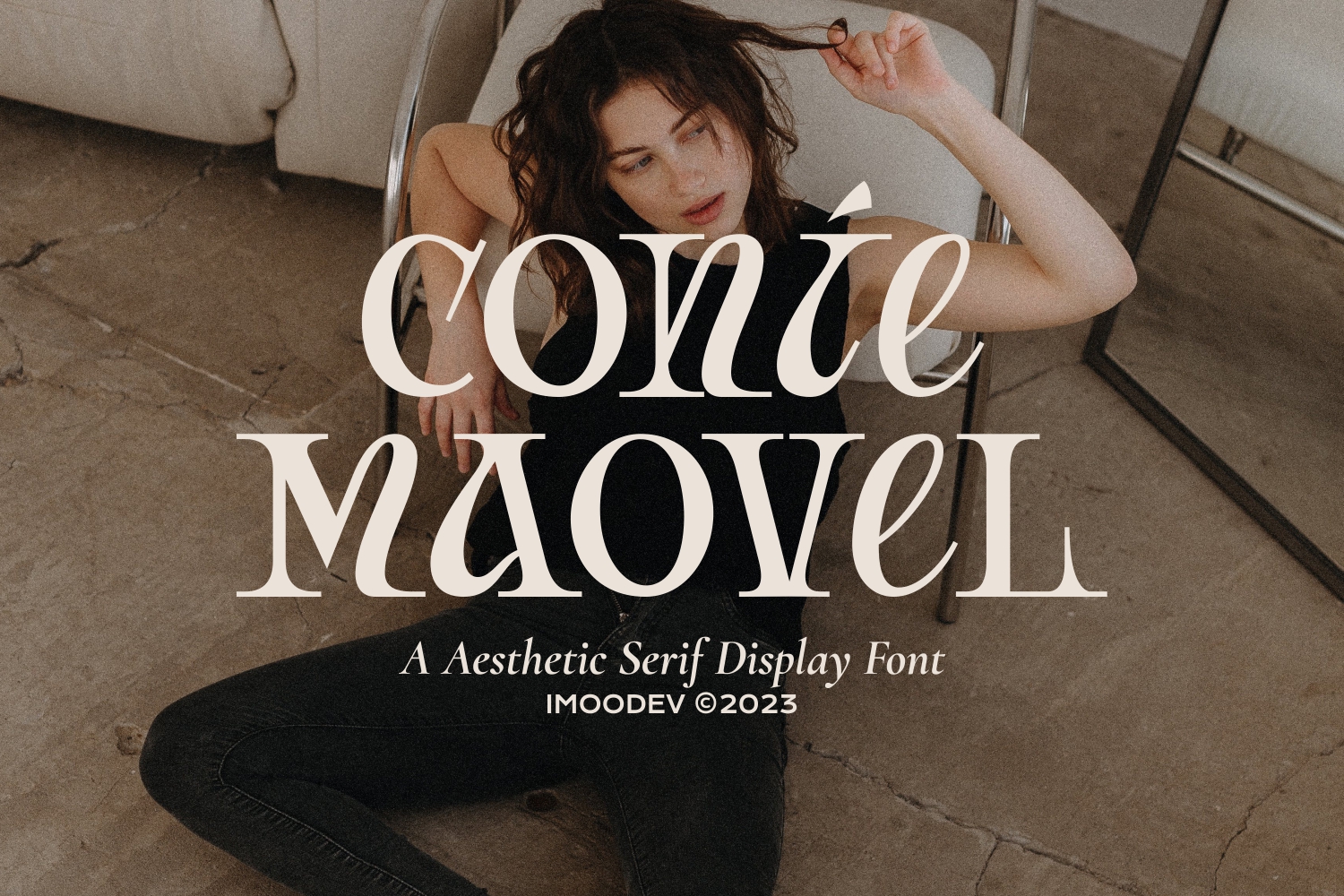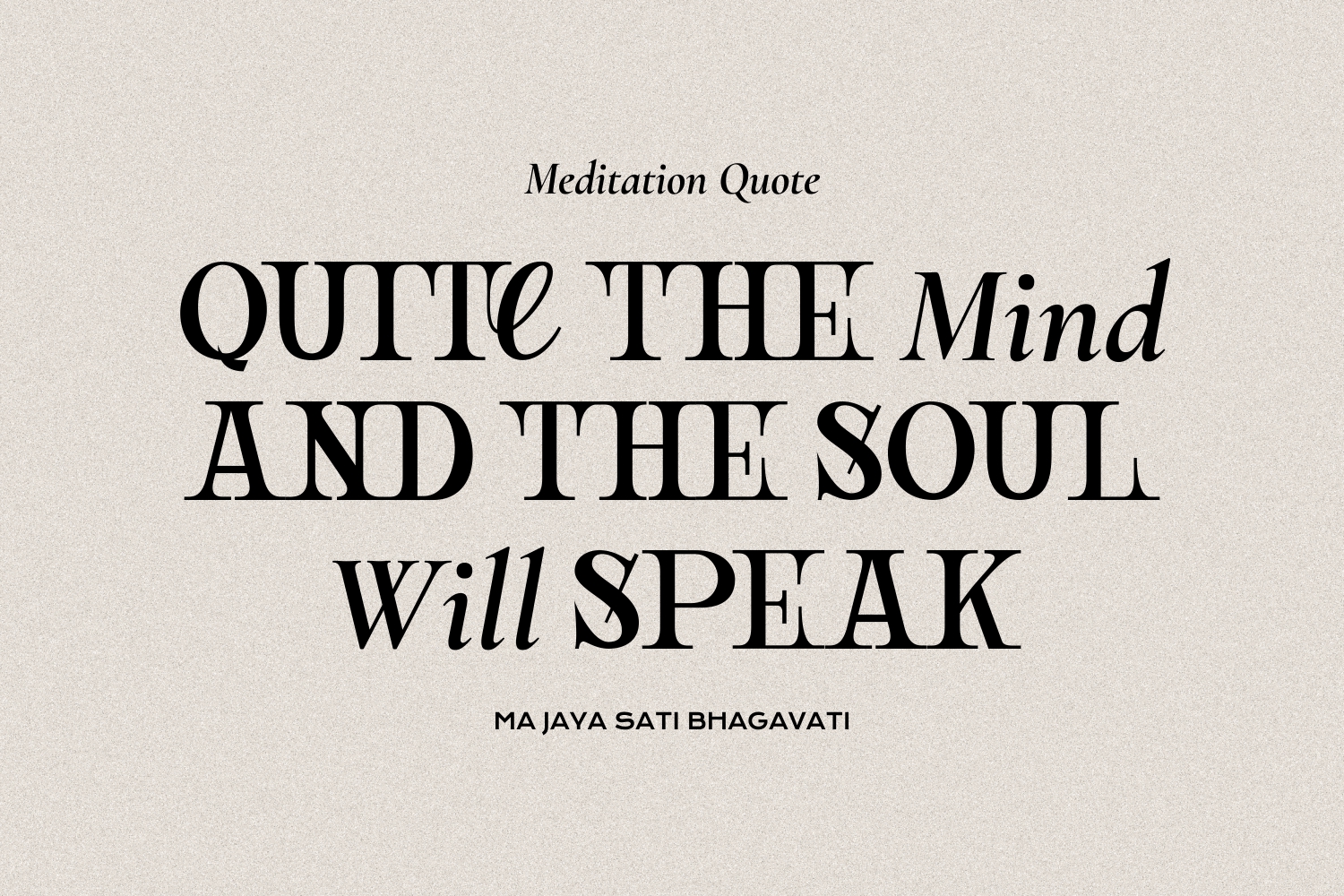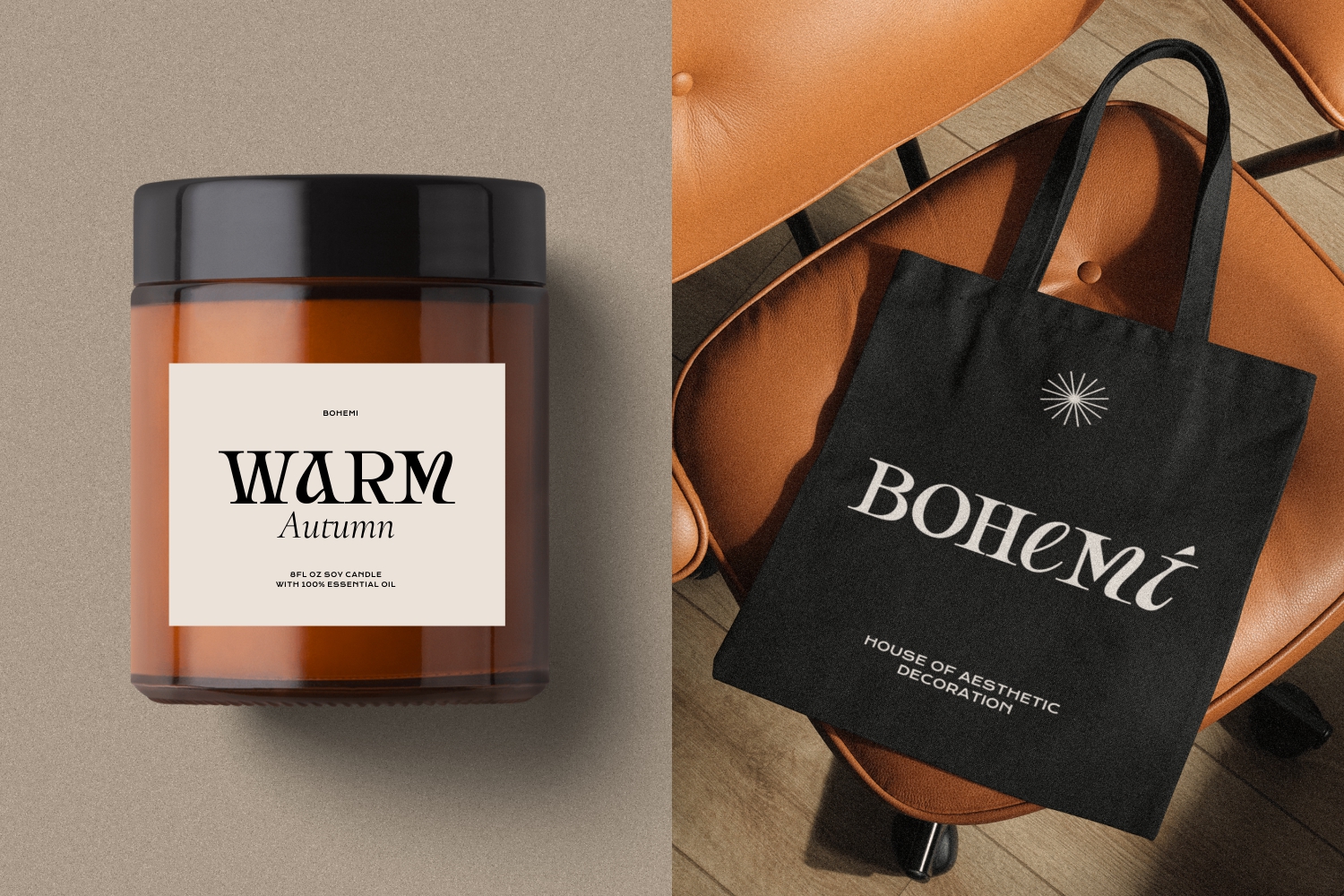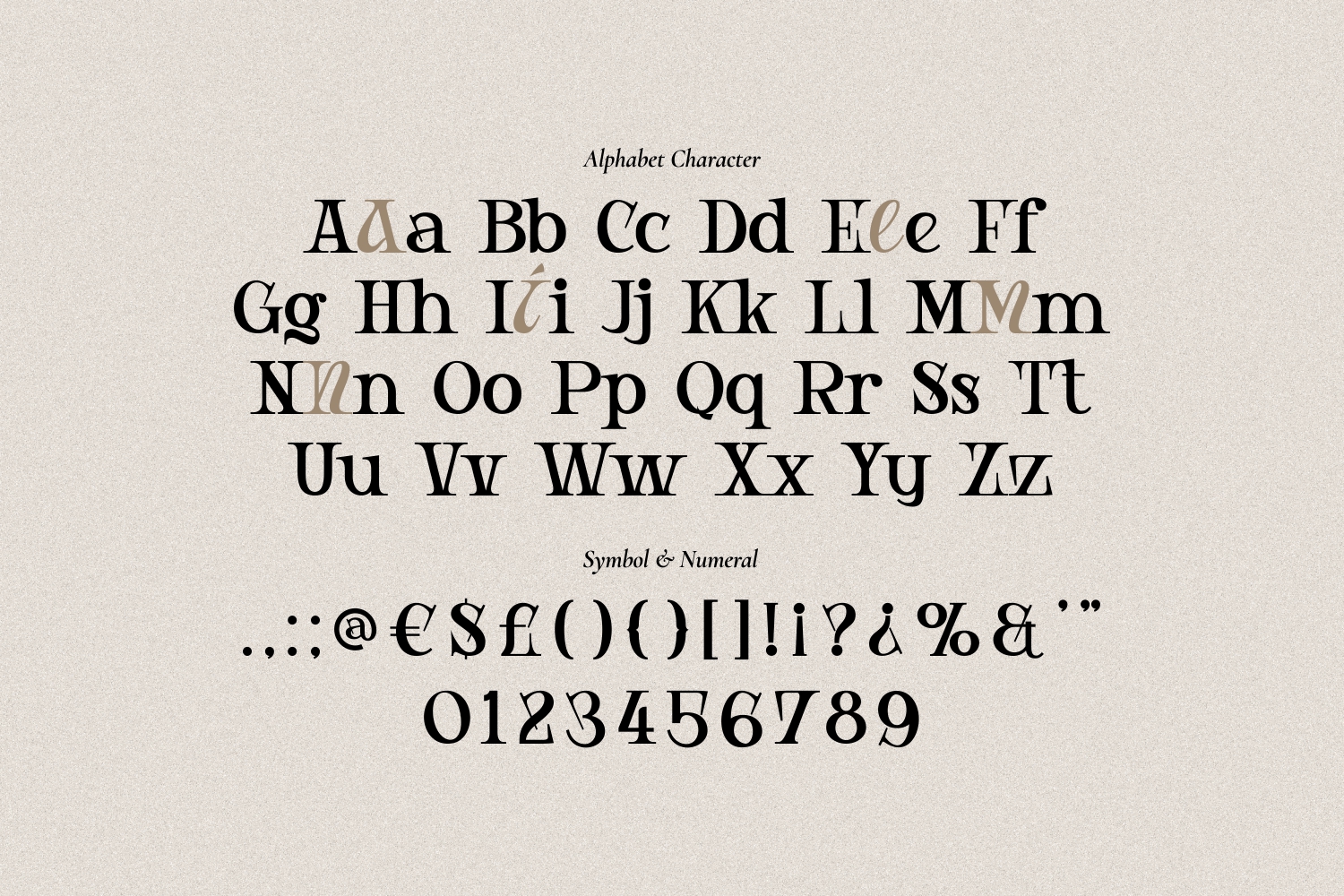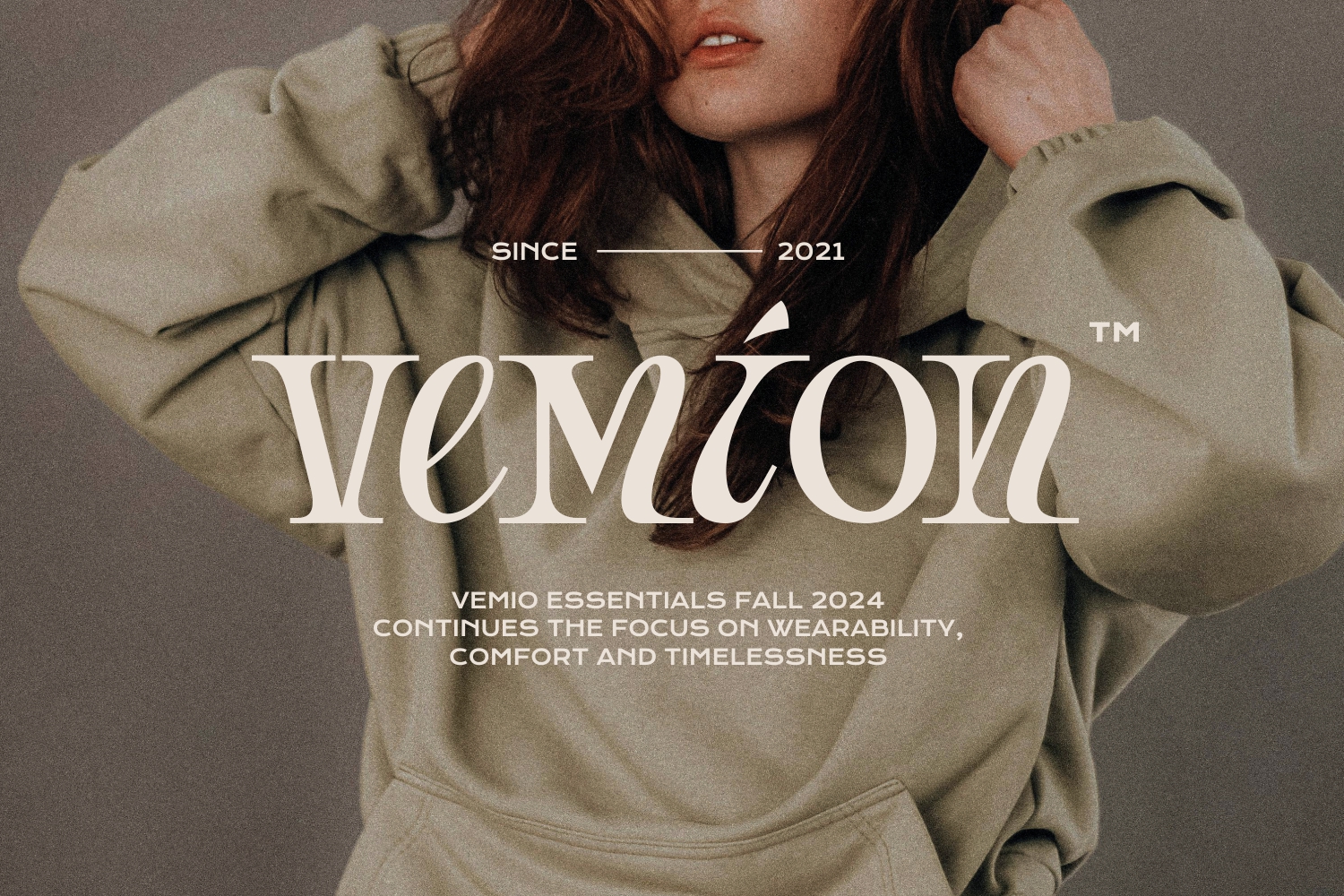
Conie Maovel is an elegant serif display font that blends classic sophistication with modern curves. Its refined letterforms feature graceful high contrast strokes and stylish alternates, making it perfect for high-end branding, editorials, and luxury product packaging. The font’s distinctive accents and ligatures add a touch of artistry, ensuring your typography stands out with timeless appeal.
Whether used for fashion campaigns, beauty product labels, wedding invitations, or upscale logos, Conie Maovel delivers a premium aesthetic that captures attention. Its versatility allows it to balance bold statements with delicate details, making it a must-have typeface for designers seeking elegance and personality in their projects.